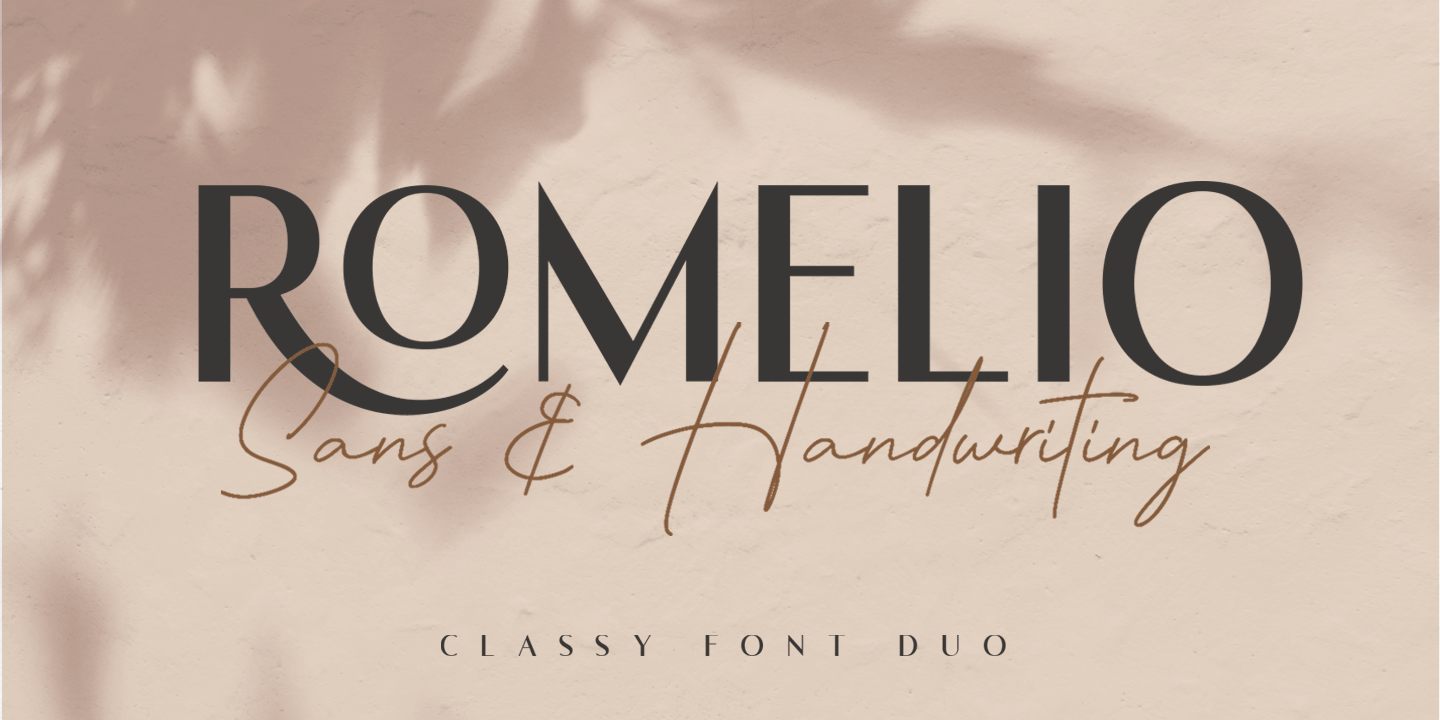
Romelio Font is perfect for elegant branding projects, luxury wedding invitations, high-end fashion magazines, premium packaging design, sophisticated logo creation, upscale restaurant menus, classical book covers, prestigious awards ceremonies, and refined corporate presentations.
What makes Romelio Font exciting is its timeless elegance and classical sophistication that bridges traditional typography with contemporary design sensibilities. This distinguished typeface features graceful curves and refined proportions that exude luxury and prestige, making it perfect for brands seeking to communicate heritage, quality, and exclusivity. The font's aristocratic character creates an immediate impression of refinement and cultural sophistication.
Romelio Font family includes comprehensive stylistic options: Regular, Light, Medium, SemiBold, Bold, and Black weights, along with their corresponding italic versions. The family also features small caps, old-style numerals, decorative alternates, elegant ligatures, and ornamental flourishes that enhance its classical appeal and typographic versatility.
The architectural excellence of Romelio Font reflects centuries of typographic evolution and classical design principles. Each letterform has been meticulously crafted to achieve perfect balance between historical authenticity and modern functionality. The font's elegant proportions and graceful curves create harmonious compositions that appeal to discerning audiences who appreciate quality craftsmanship.
Luxury brands will find Romelio Font essential for establishing premium market positioning and communicating exclusivity. The font's distinguished appearance resonates with affluent consumers who value tradition, quality, and sophisticated aesthetics. Its classical character helps build brand heritage and establishes emotional connections with high-end market segments.
Cultural institutions and educational organizations benefit from Romelio Font's scholarly appearance that conveys knowledge, tradition, and intellectual authority. The font's refined character enhances academic publications, museum materials, and cultural communications while maintaining accessibility and readability across diverse audiences.
Editorial applications showcase Romelio Font's exceptional performance in books, magazines, and prestigious publications. The font's classical proportions ensure comfortable reading experiences while its elegant character enhances the perceived value of written content. Its sophisticated appearance elevates editorial design and establishes publication credibility.
Wedding and event designers appreciate Romelio Font's romantic elegance that creates memorable invitations and ceremonial materials. The font's graceful character captures the significance of special occasions while maintaining legibility across various sizes and applications. Its timeless appeal ensures lasting satisfaction with design choices.
Corporate communications featuring Romelio Font project professionalism, stability, and trustworthiness essential for executive-level presentations and formal business documents. The font's authoritative presence enhances corporate credibility while its refined appearance reflects organizational sophistication and attention to detail.
Romelio Font represents the pinnacle of classical typography, combining historical elegance with contemporary functionality to serve the most demanding design applications and prestigious brand communications.